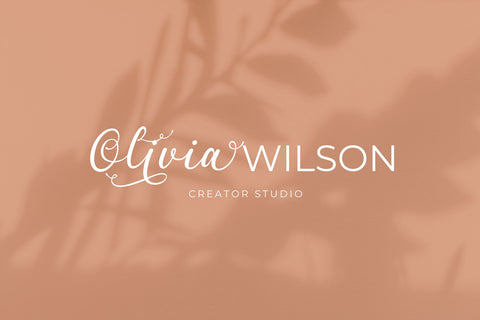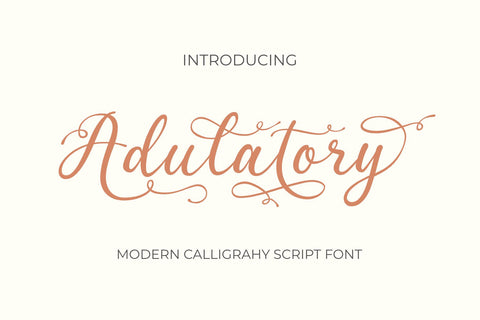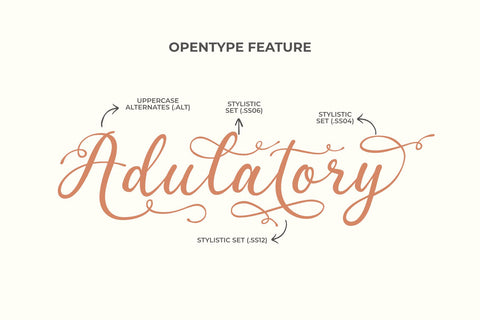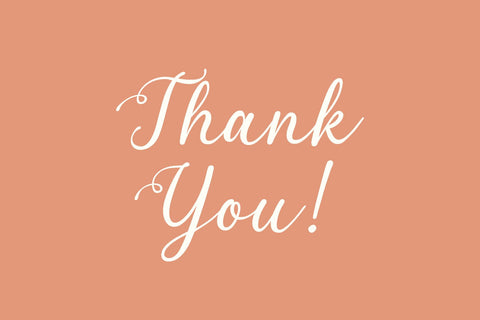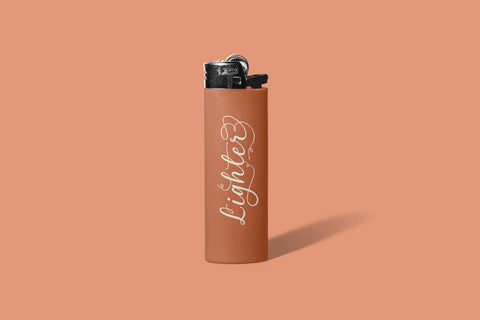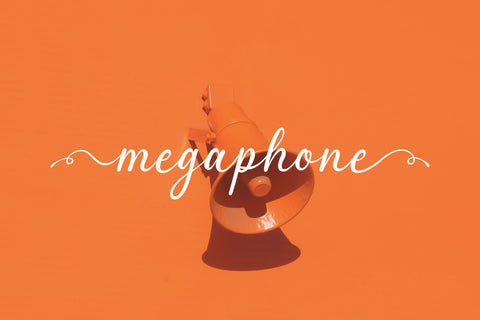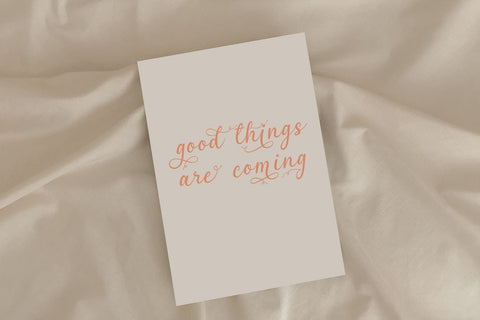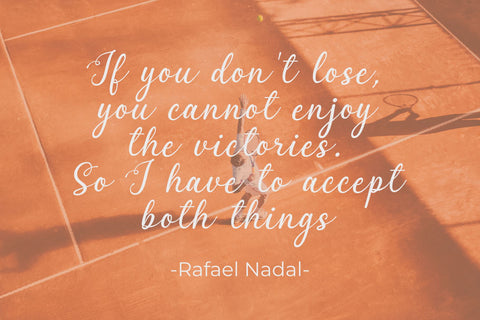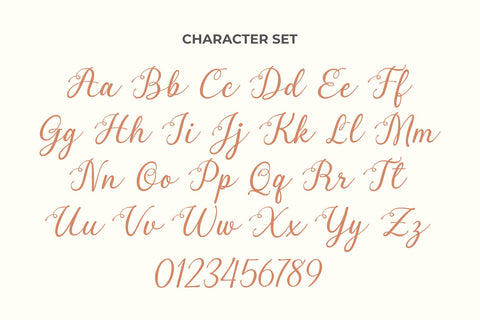
Adulatory - a Modern Calligraphy Font
Adulatory is a classy, elegant, and flowing calligraphy script font perfect for your favorite projects. Fall in love with its incredibly distinct and timeless style, and use it to create spectacular designs!